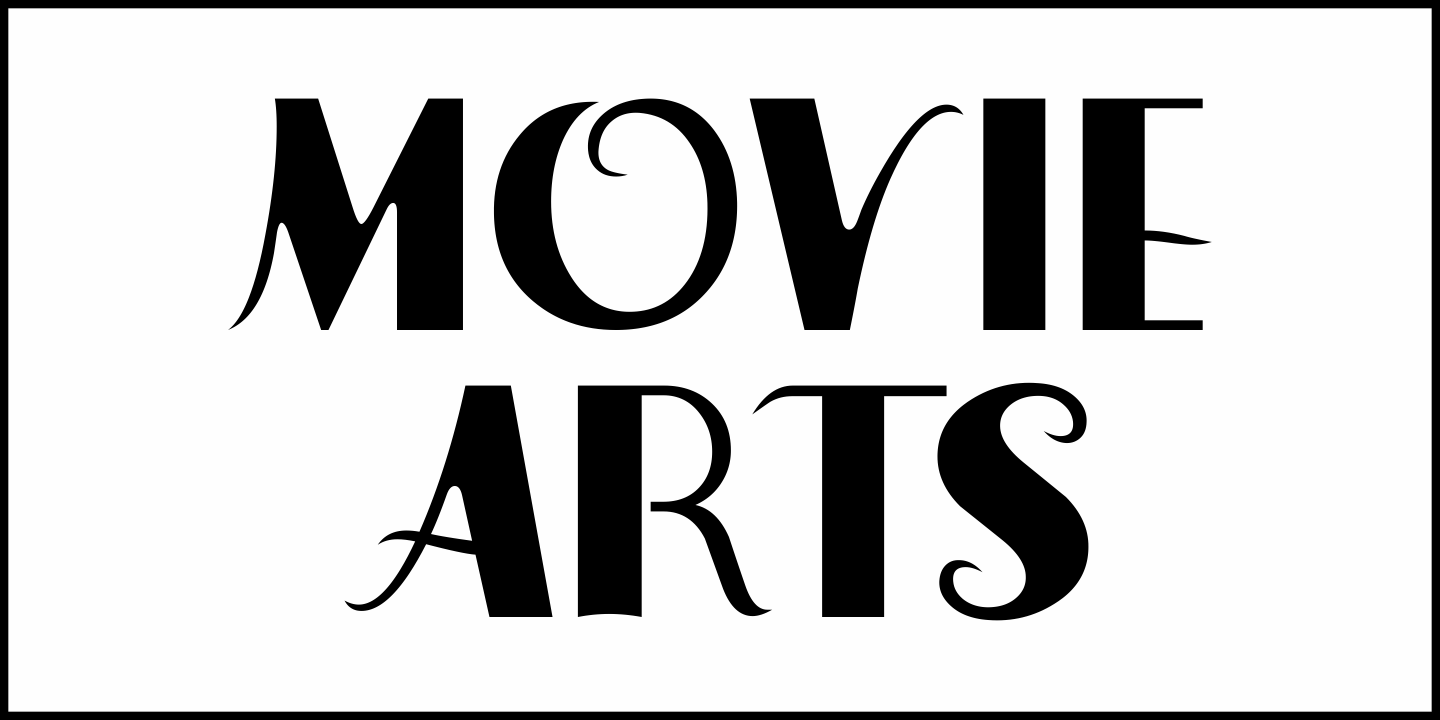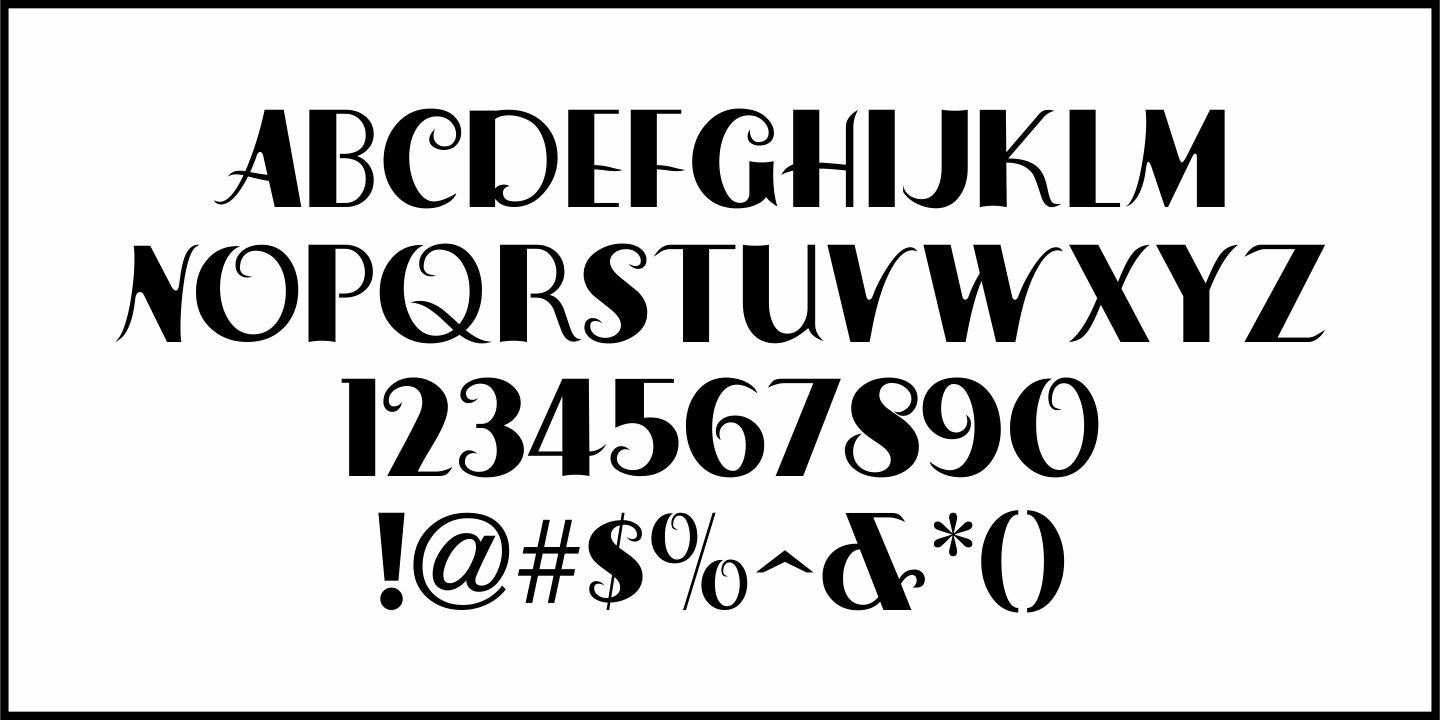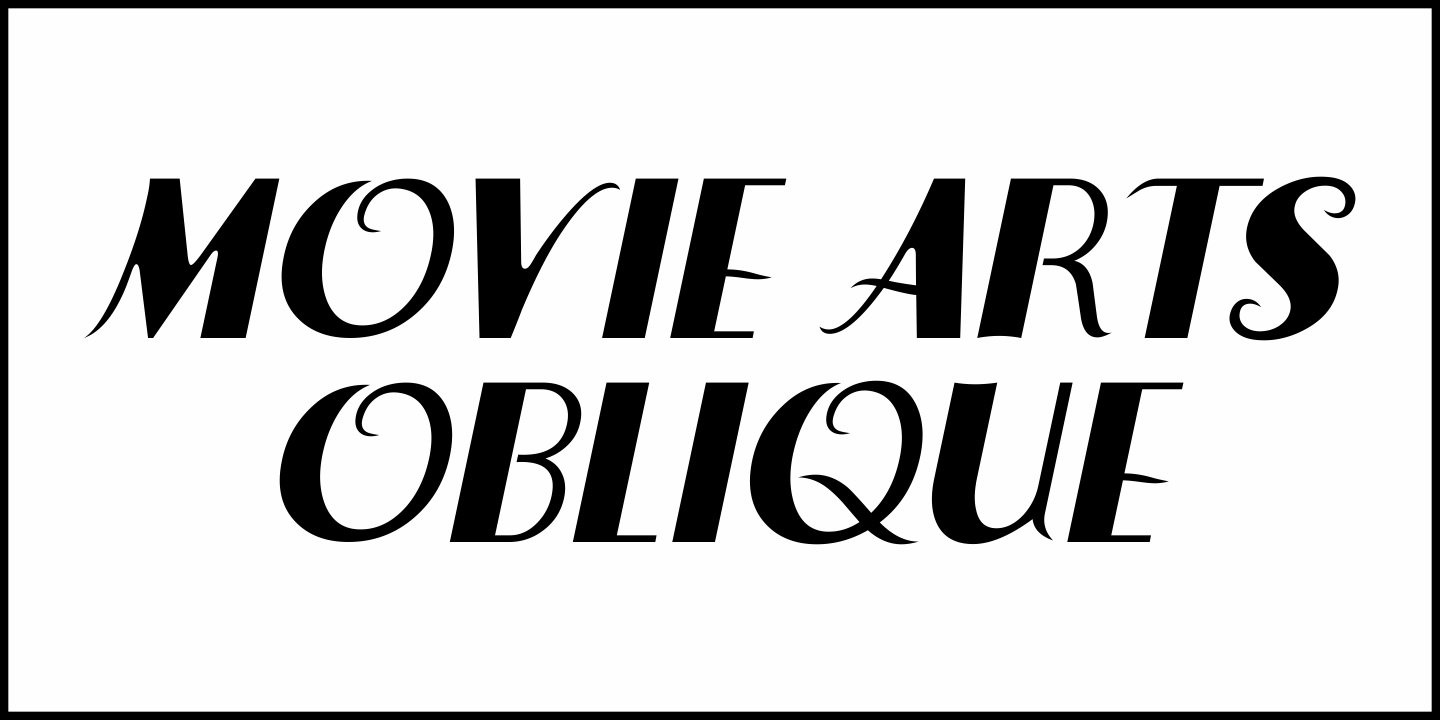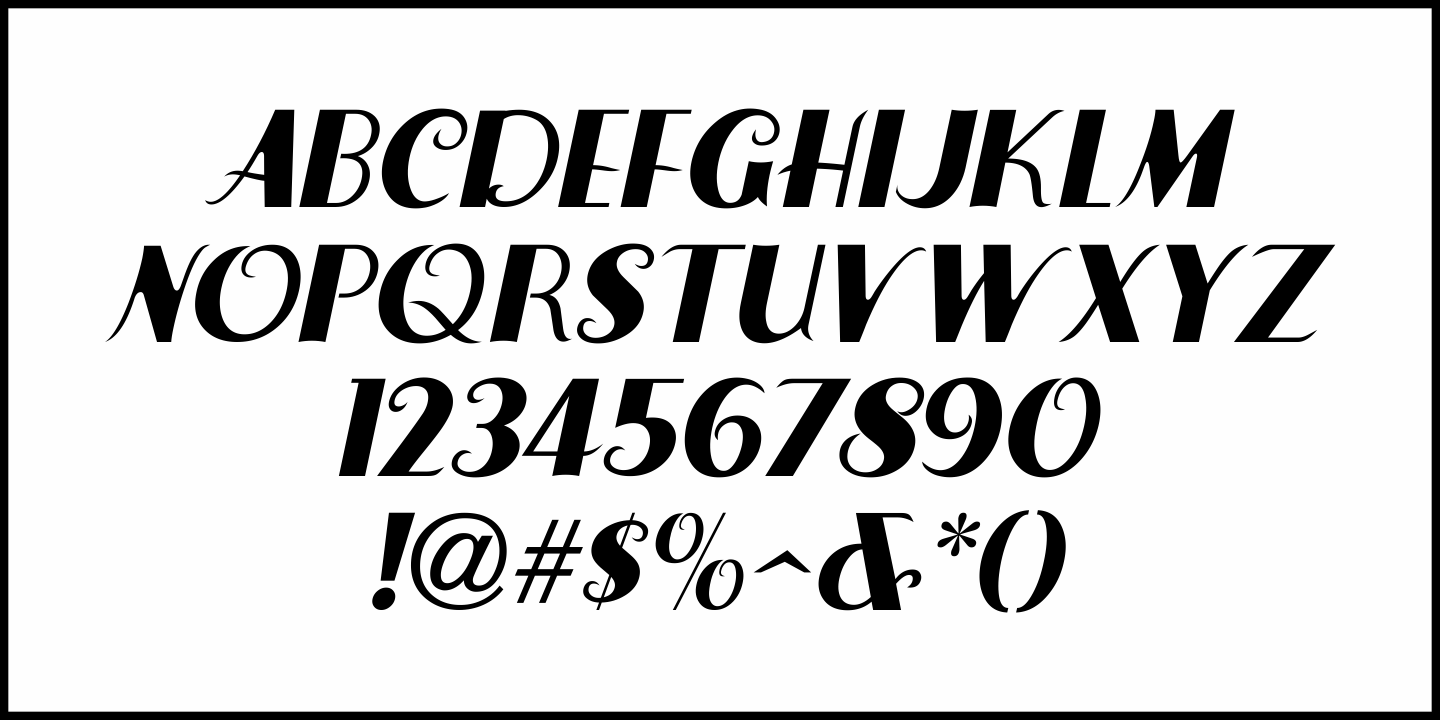
Movie Arts
In the June 18, 1929 issue of 'The Film Daily”, the curvy and casual hand lettering found within the ad for the movie 'Such Men are Dangerous” belies that this was actually a pre-code drama.
Digitally redrawn as Movie Arts JNL, it is available in both regular and oblique versions.
Movie Arts JNL Regular by Jeff Levine Fonts